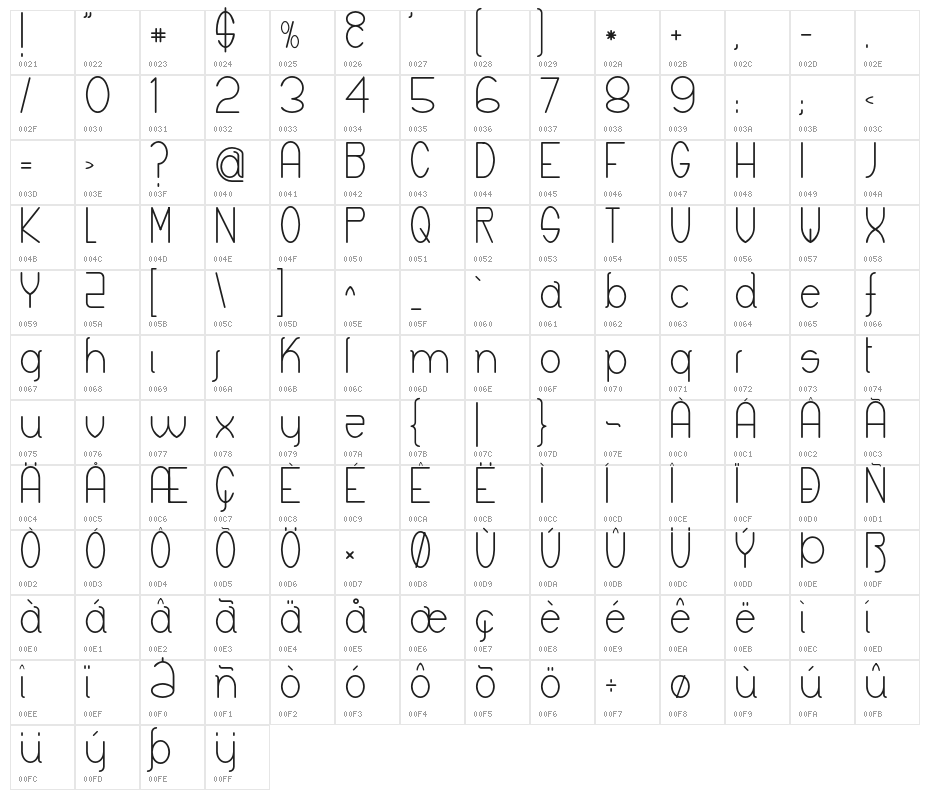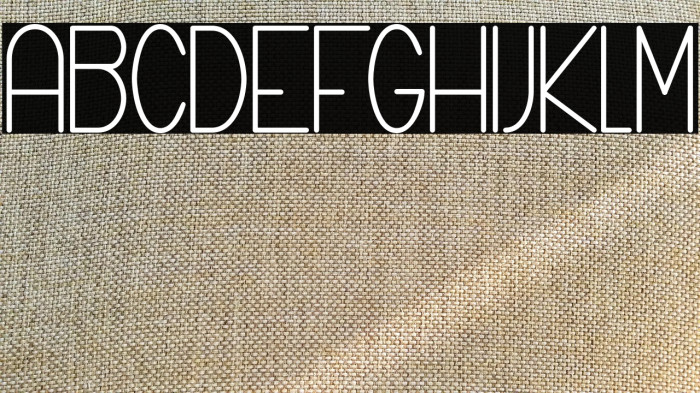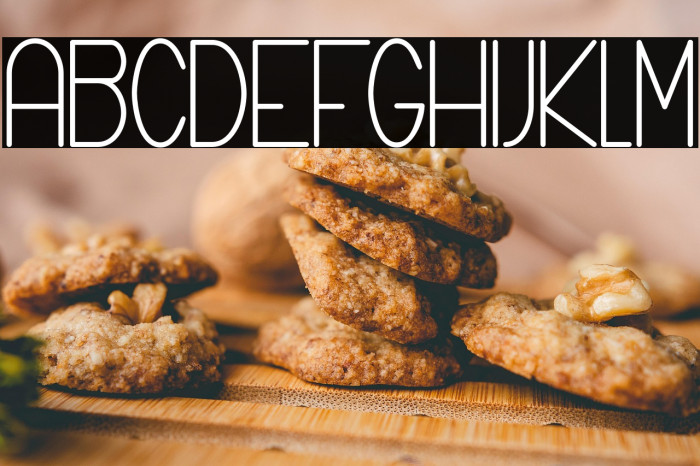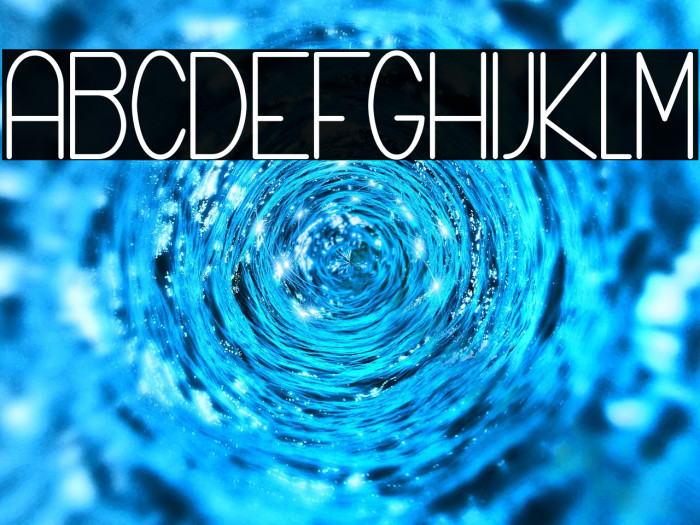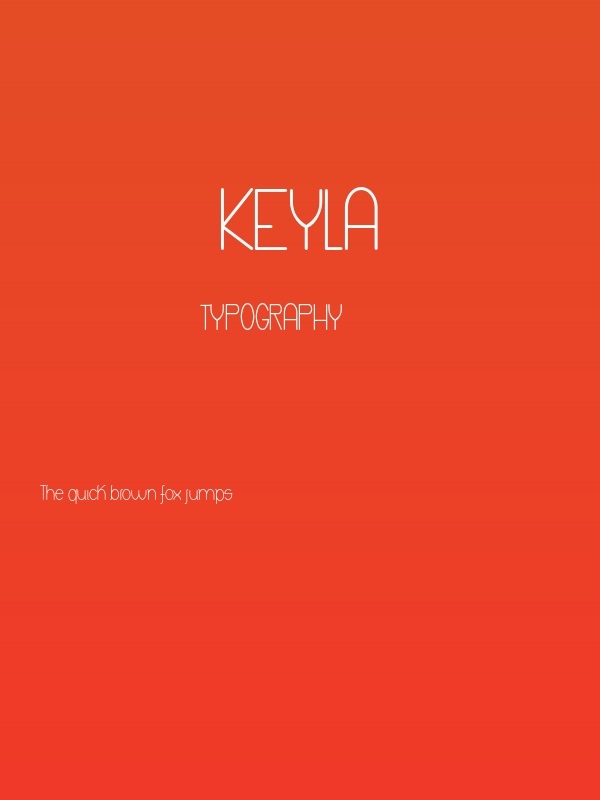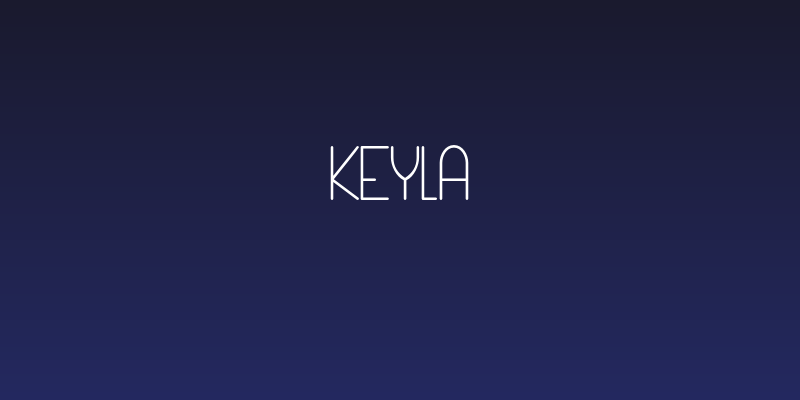
Keyla Font
Keyla Description
This font features a sleek, modern design with a geometric and minimalist aesthetic. The characters are constructed with uniform line thickness, giving it a clean and contemporary look. The uppercase letters are tall and narrow, while the lowercase letters maintain a consistent height, creating a harmonious balance. The numbers and special characters follow the same design principles, ensuring a cohesive appearance across all elements. The font's simplicity and elegance make it versatile for various design applications.
| Proposed Projects | Ideal for branding, advertising, and editorial design projects where a modern and clean aesthetic is desired. |